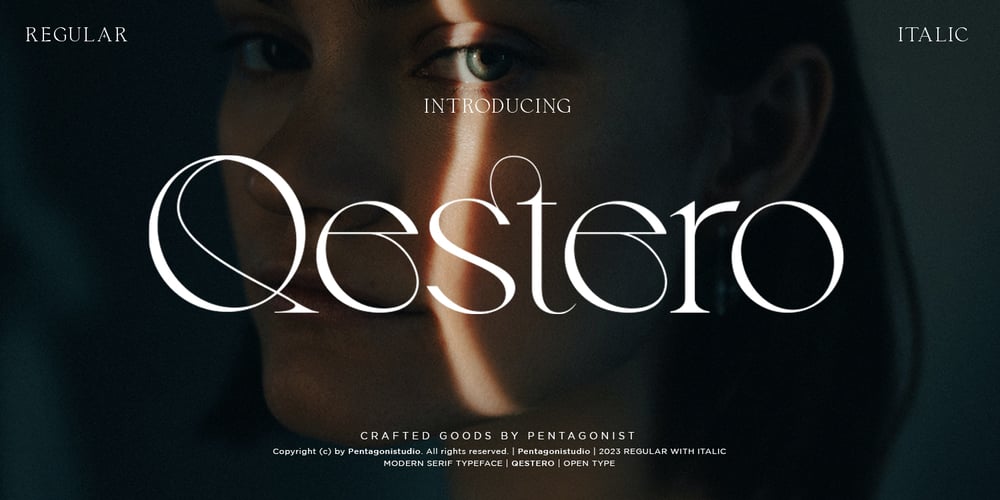
Qestero PS Font Family was designed by Burhan Adiatma and published by pentagonistudio. Qestero PS contains 2 styles and family package options. Qestero Is A Modern Display Font Inspired By Sleek and Exotic Style.SOFTWARE REQUIREMENTS :Fonts and alternate: No special software is required they may be used in any basic program /website app that allows standard fonts That’s it, folks! You can go ahead and get cracking :)Follow My Shop For Upcoming Updates Including Additional Glyphs And Language Support. And Please Message Me If You Want Your Language Included or If There Are Any Features or Glyph Requests, Feel Free to Send me A Message. Have a Good Day!